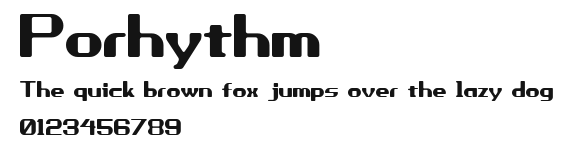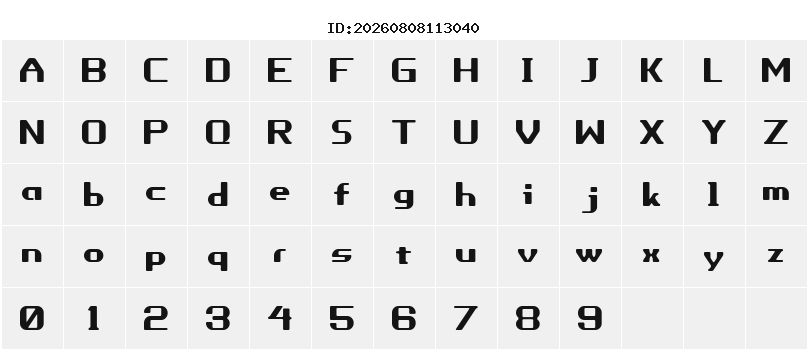
• Font Name: Porhythm
About Porhythm.ttf
Porhythm.ttf is a modern, elegant sans-serif font designed for ultimate readability and visual harmony. Perfect for branding, headlines, web design, and print materials.